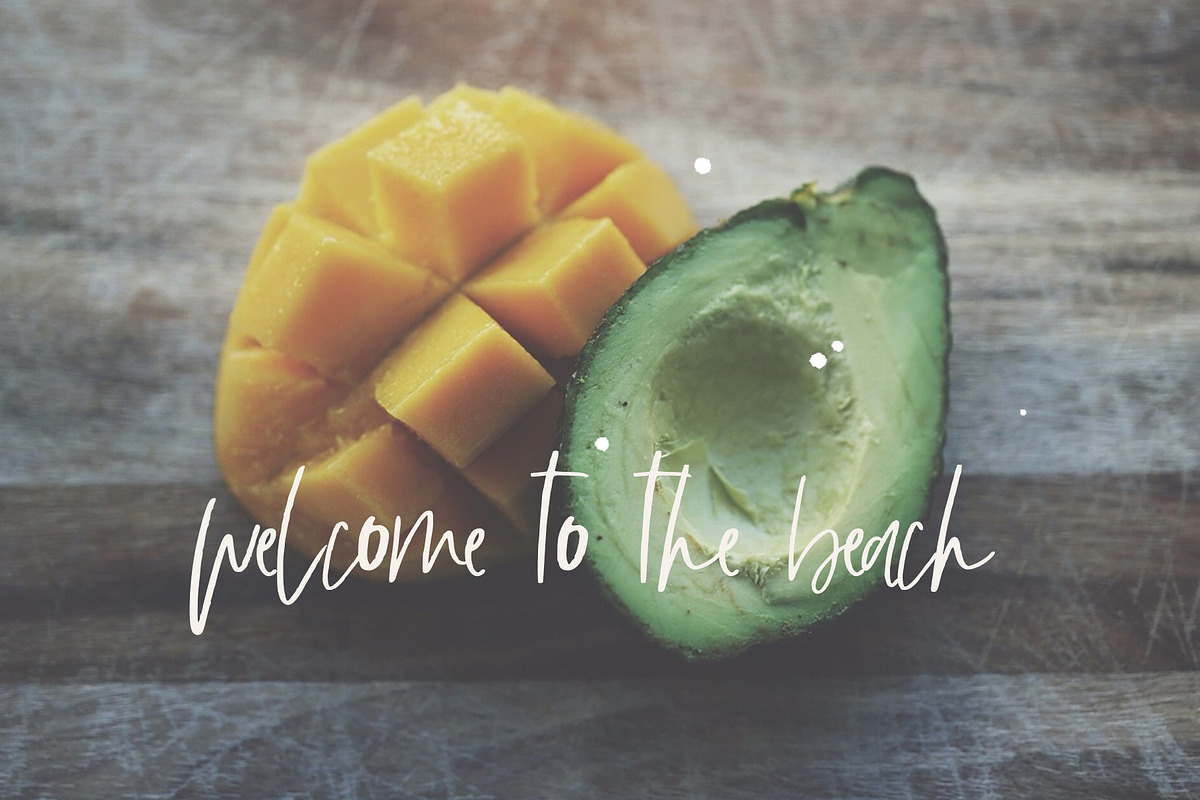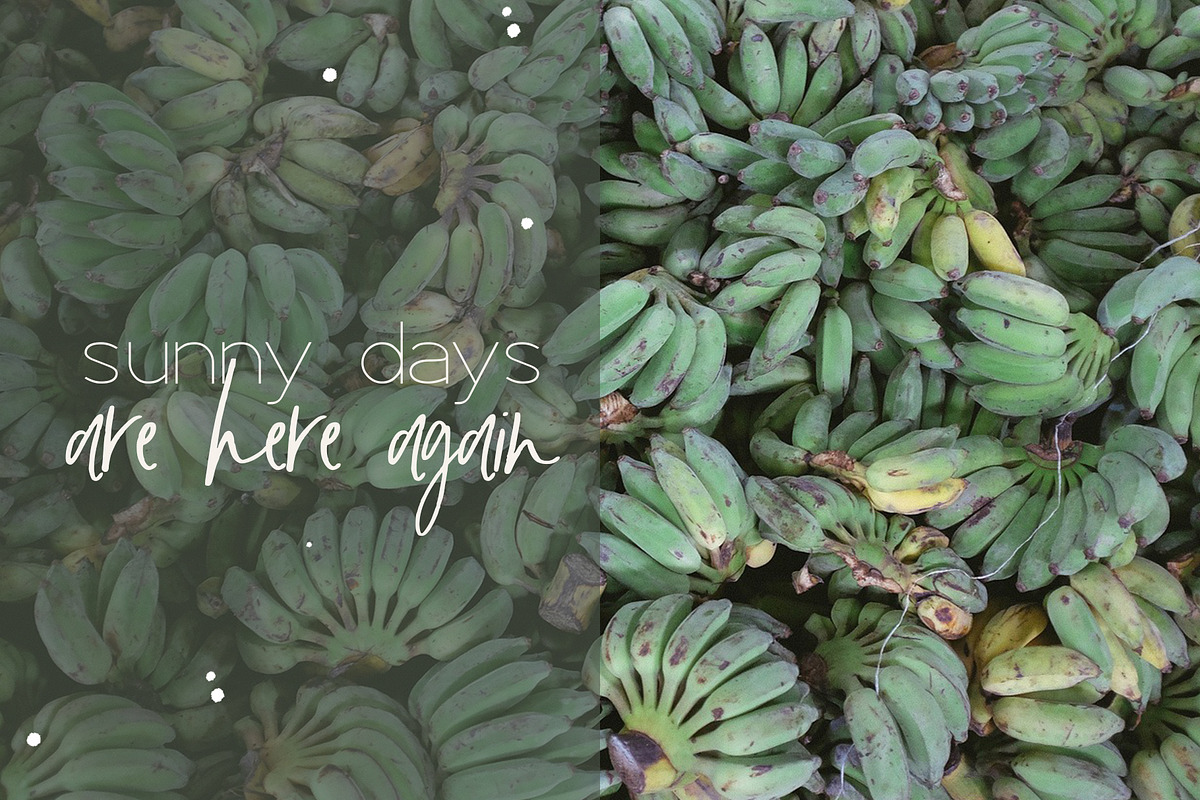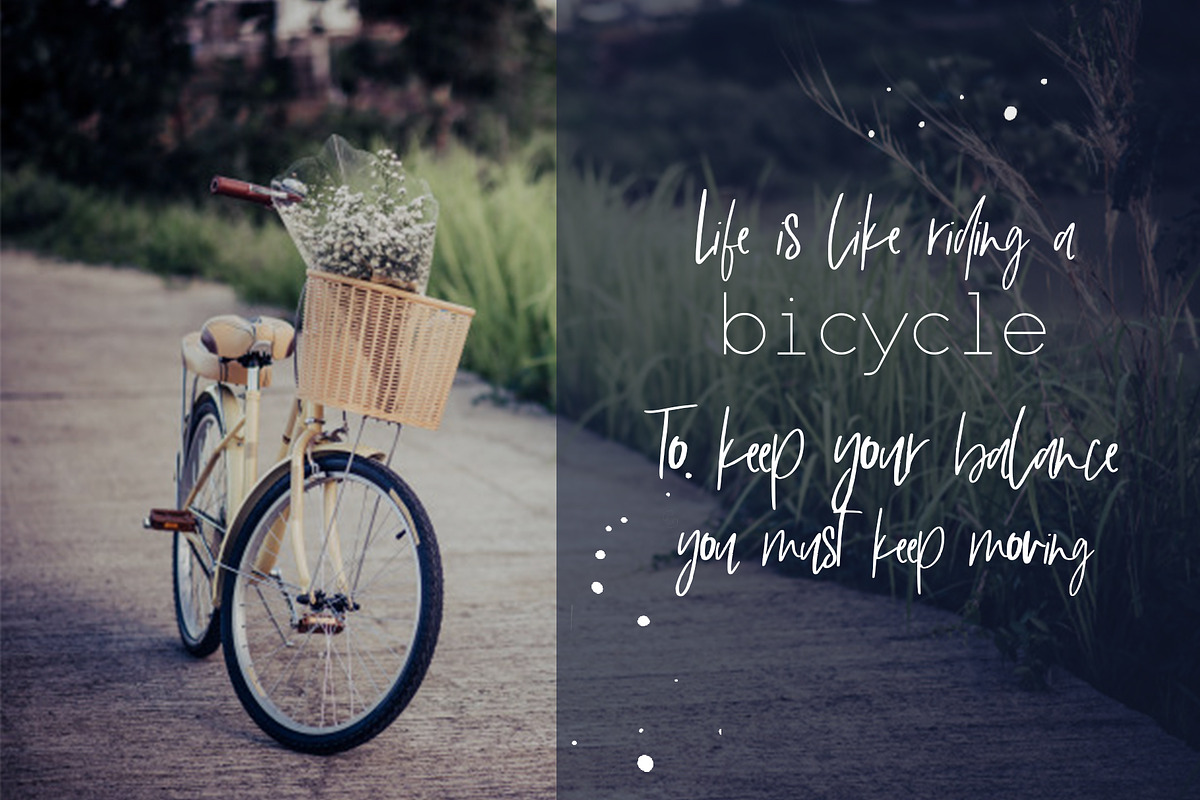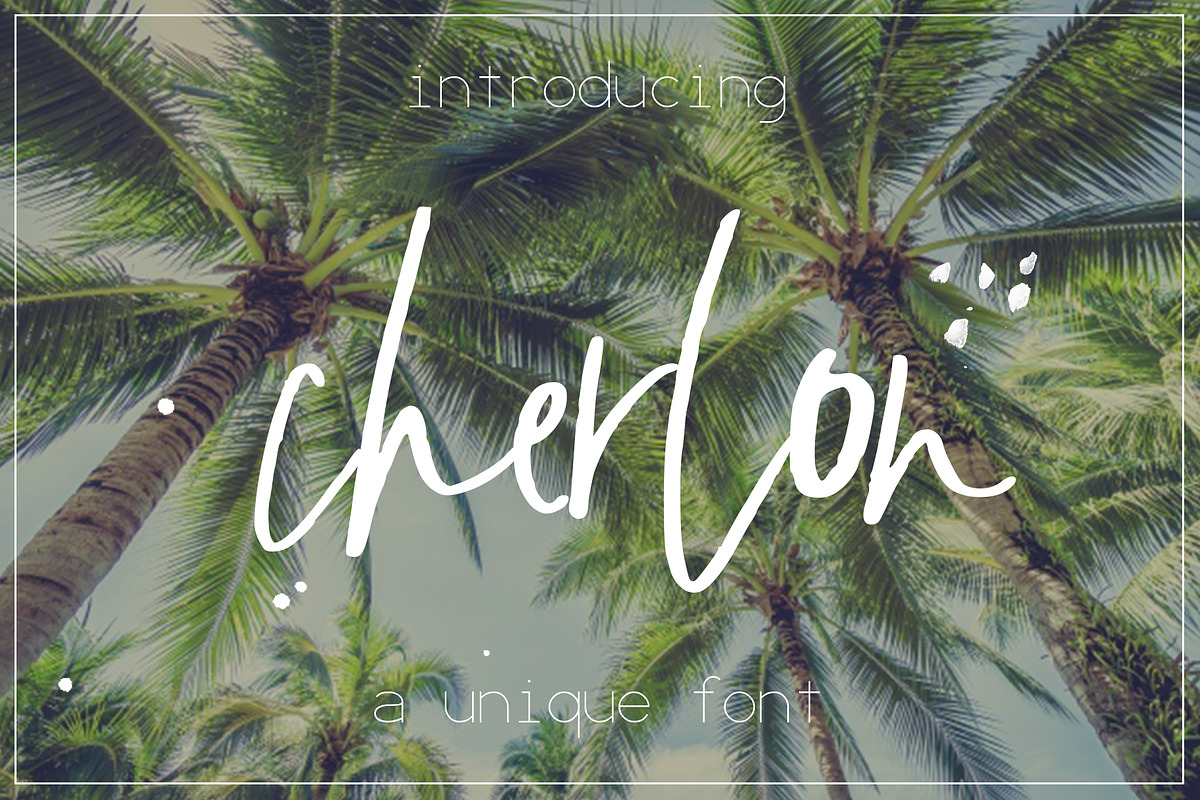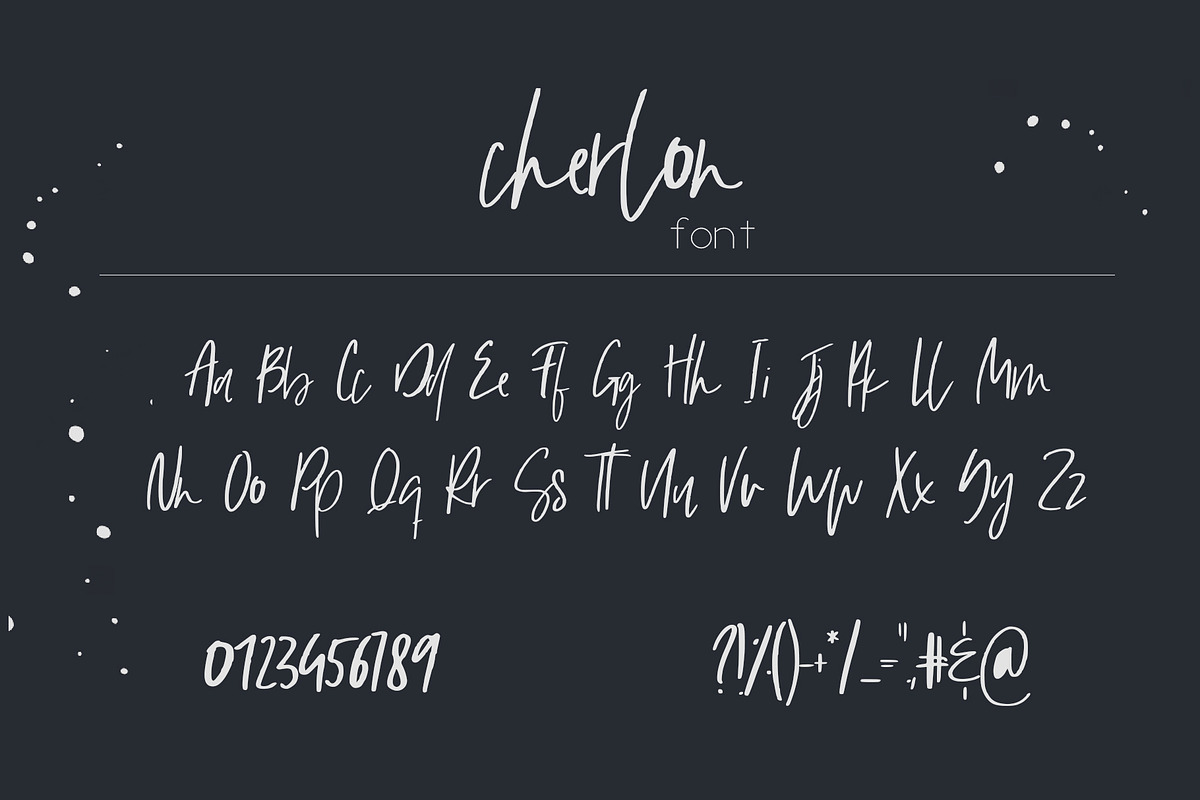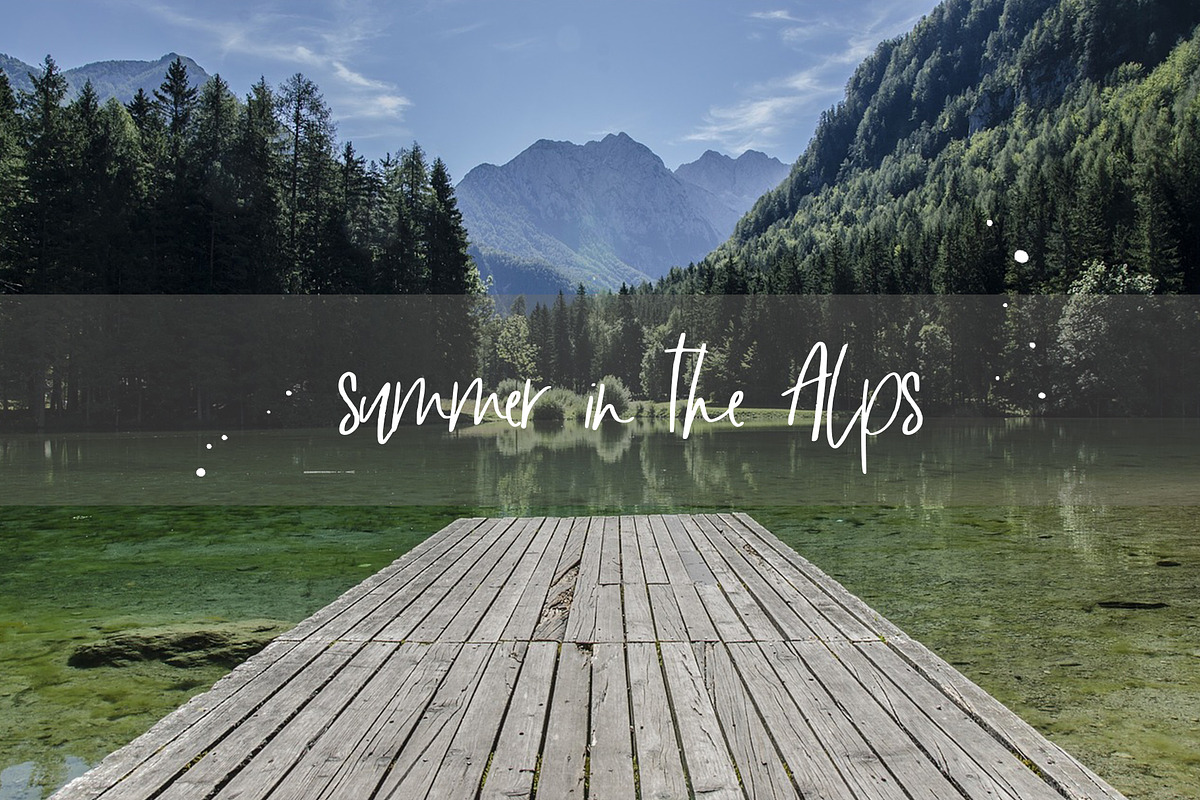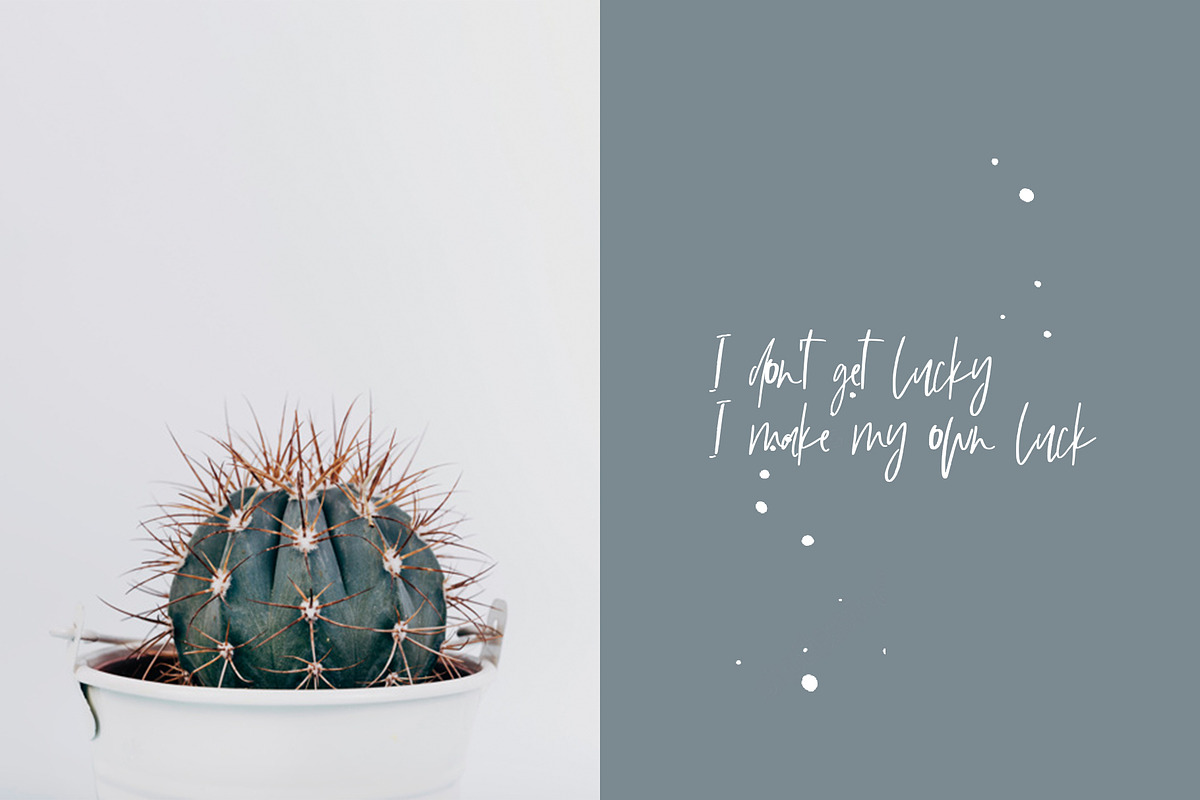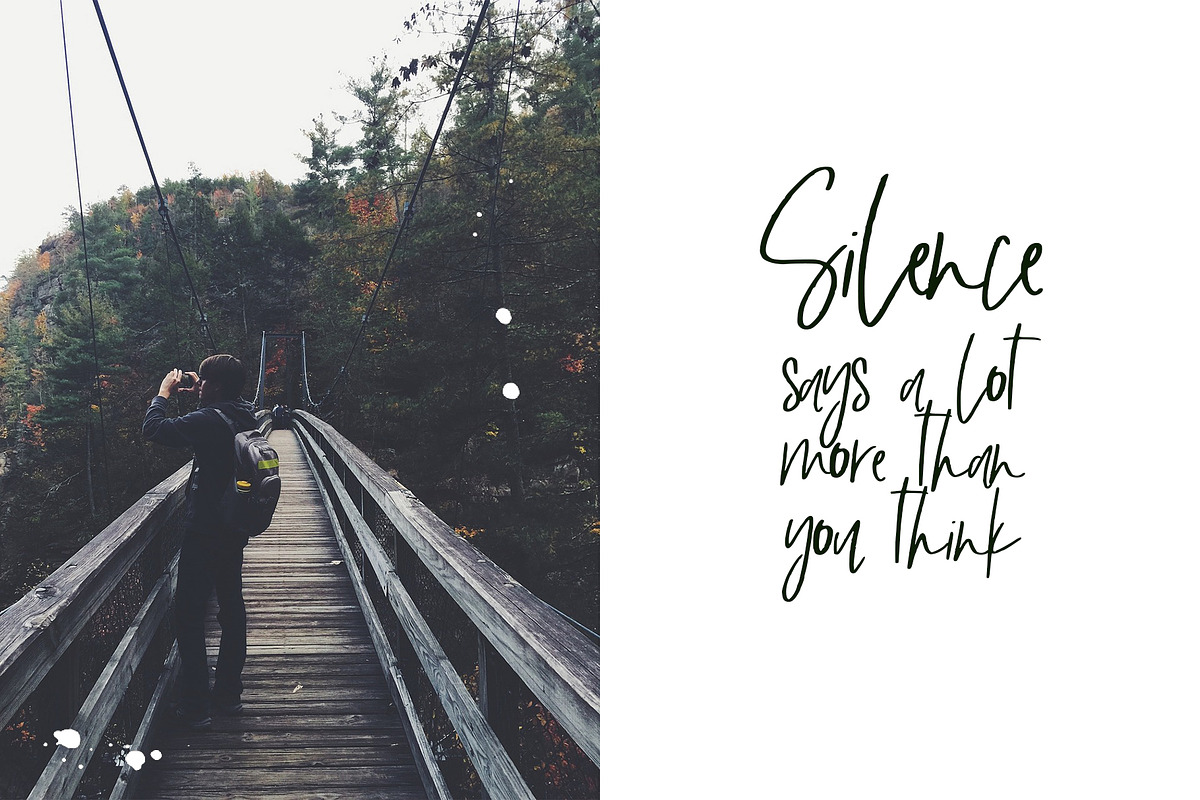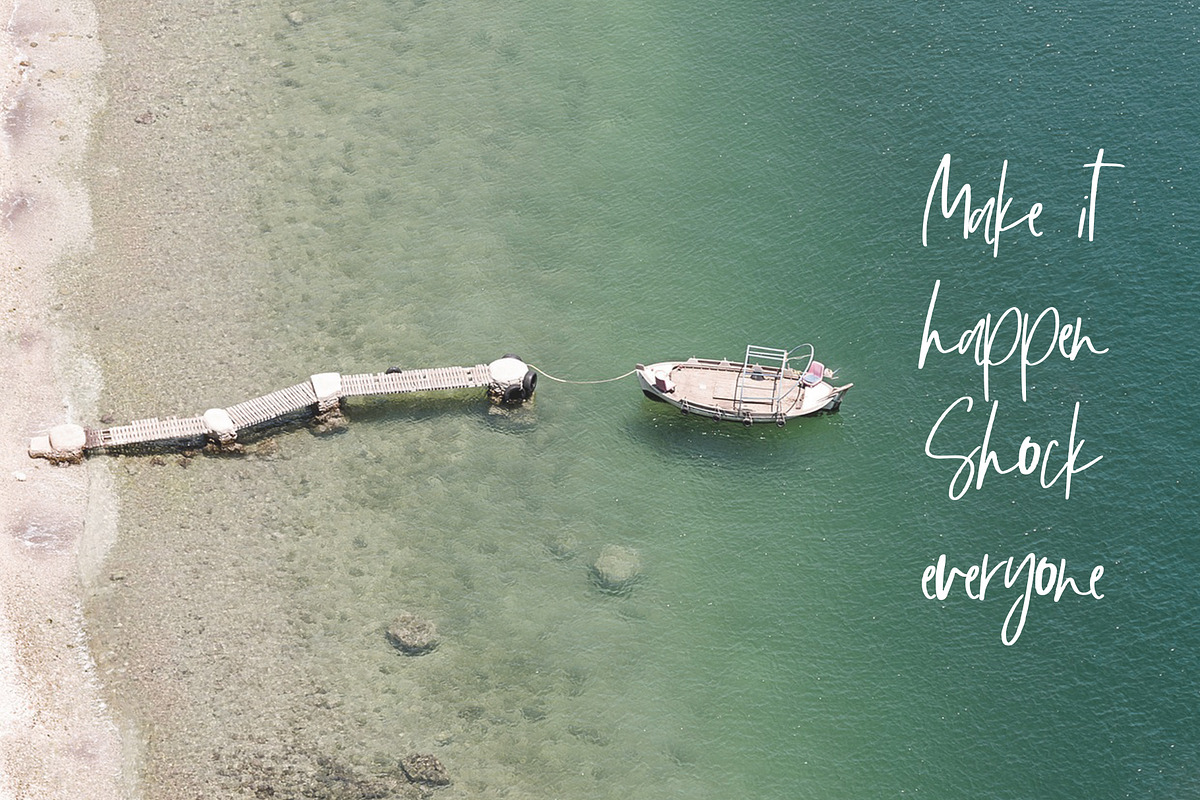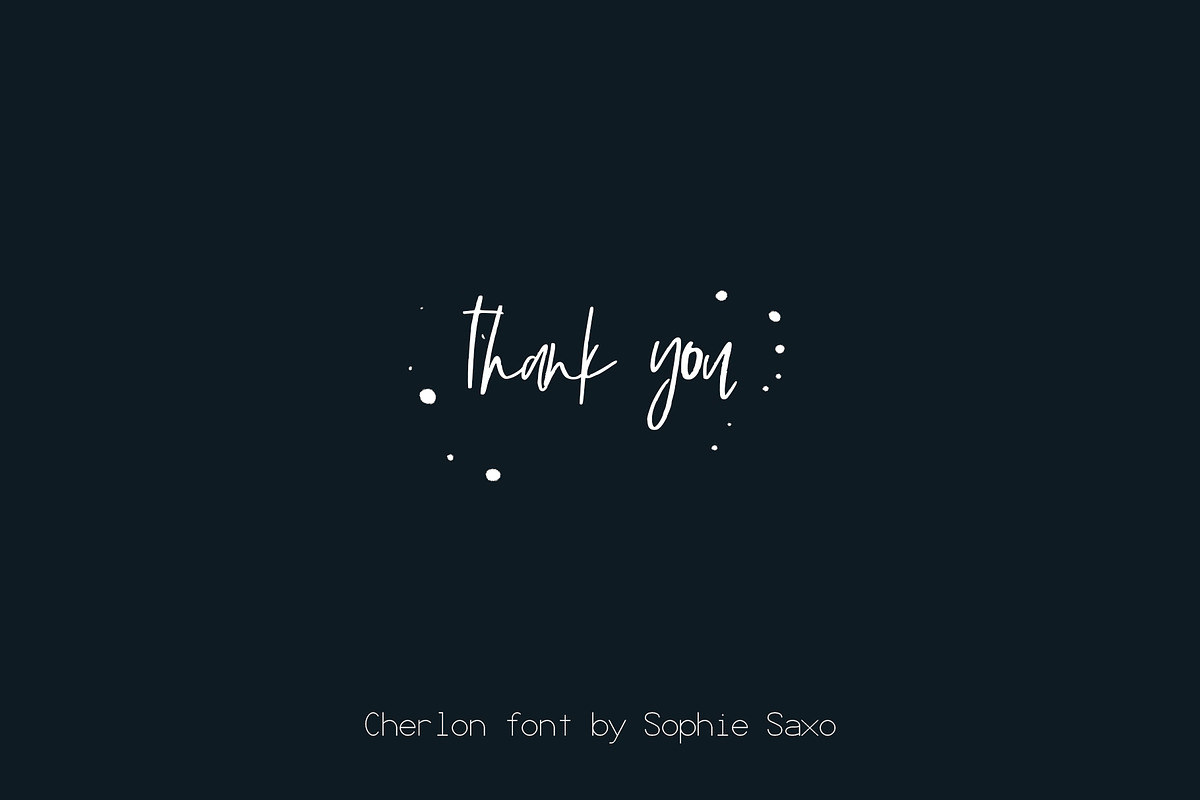
Cherlon Font
Introducing Cherlon, a gorgeous unique handwritten font.💗 Perfect for any calligraphic and logo designs, wedding and birthday invitations.
Cherlon font contains upper & lowercase characters, full set of punctuation and numerals.